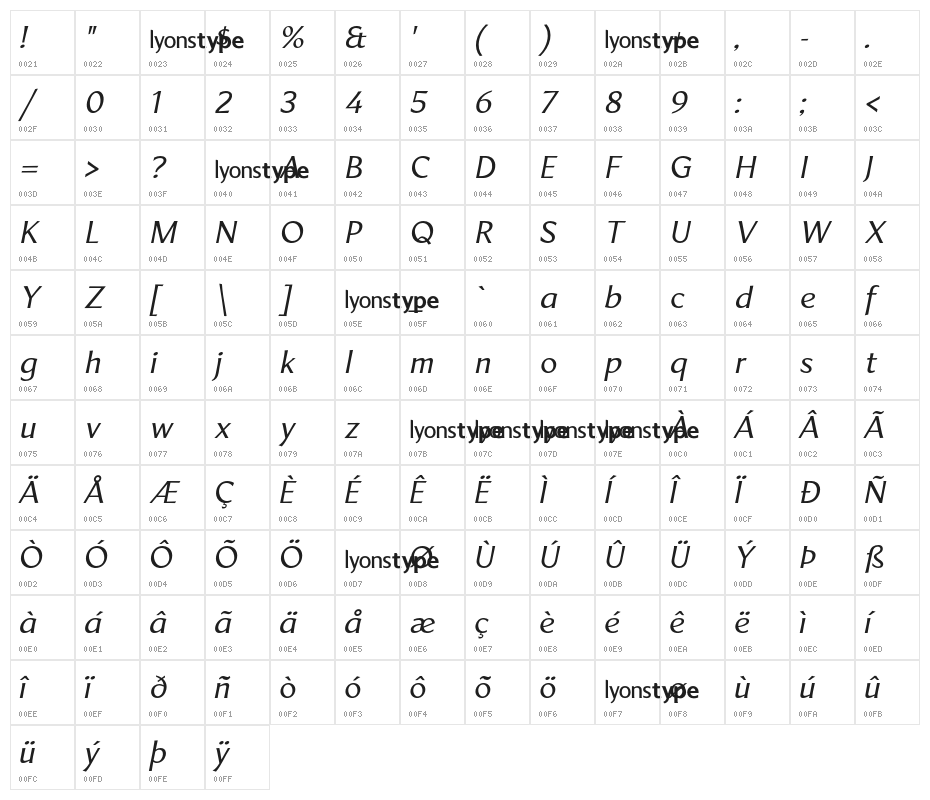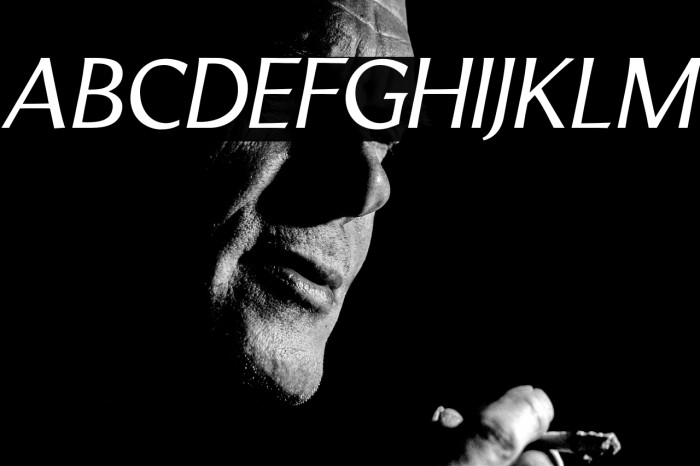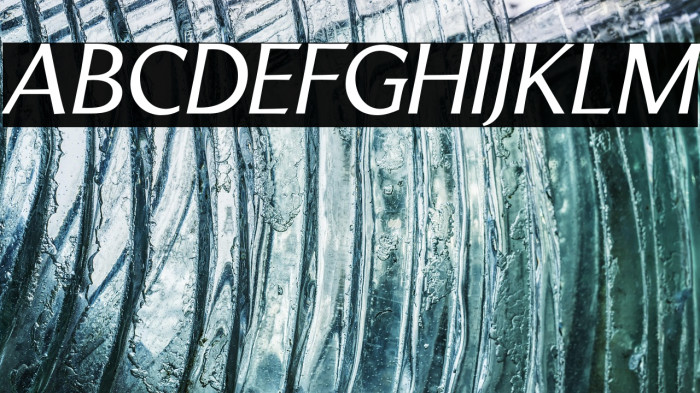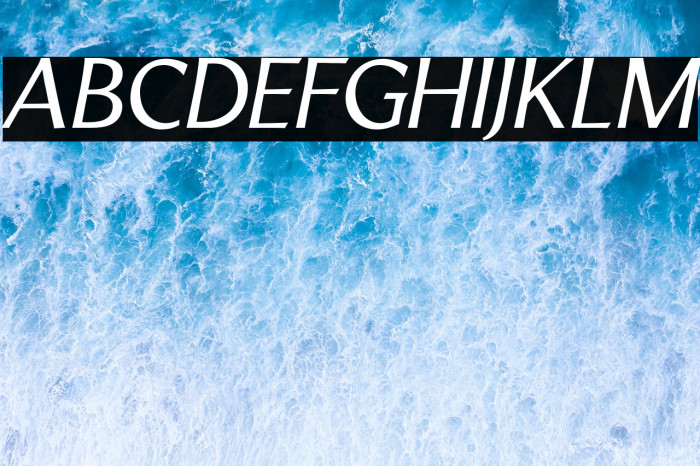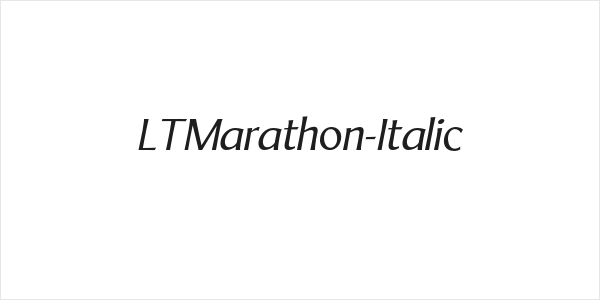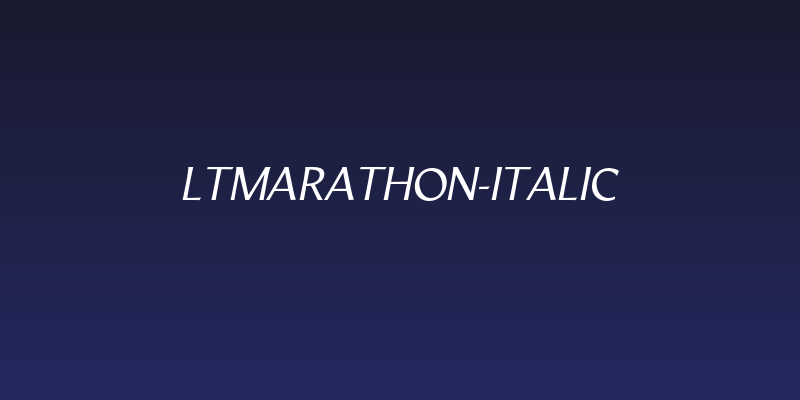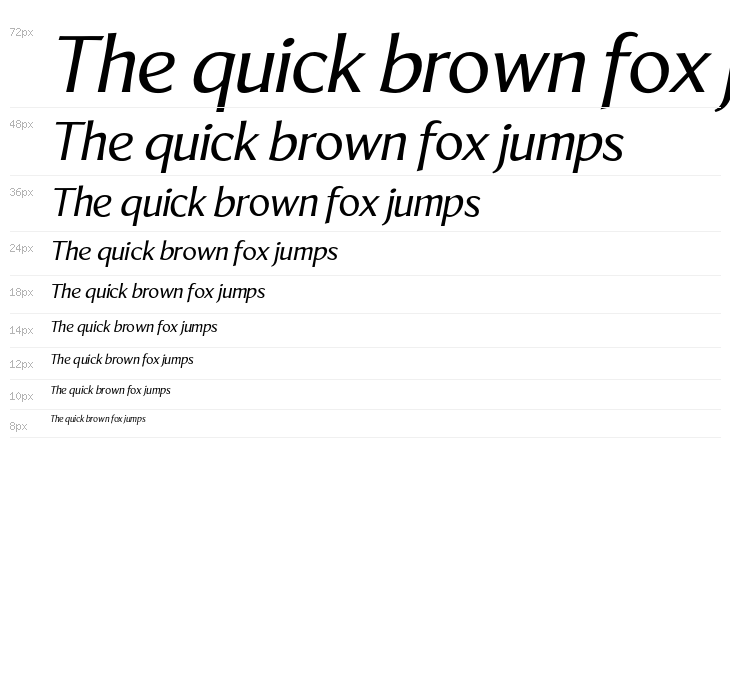
LTMarathon-Italic Font
LTMarathon-Italic Description
This font features a sleek and elegant italic style, characterized by its smooth, flowing lines and slight slant to the right. The uppercase letters are tall and narrow, while the lowercase letters maintain a consistent height, creating a harmonious balance. The numerals are proportionate and align well with the overall design. Special characters are crafted with precision, adding to the font's versatility. The font's clean and modern appearance makes it suitable for a variety of design applications, offering both readability and aesthetic appeal.